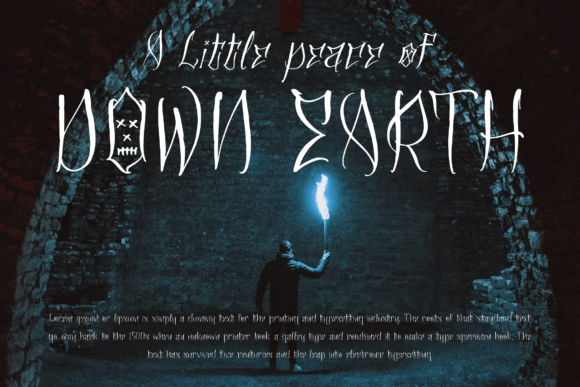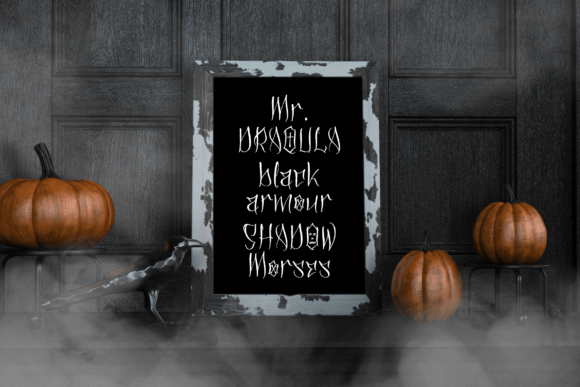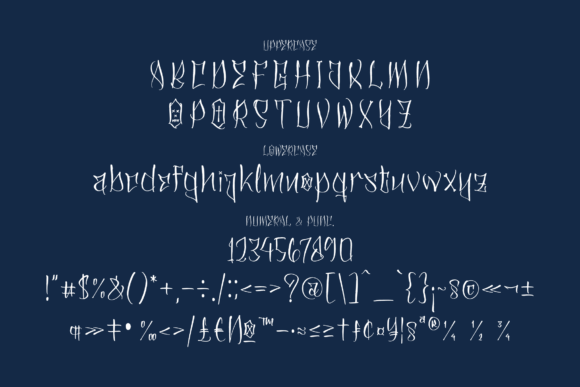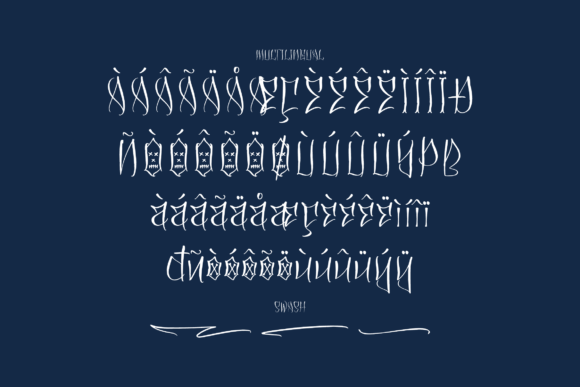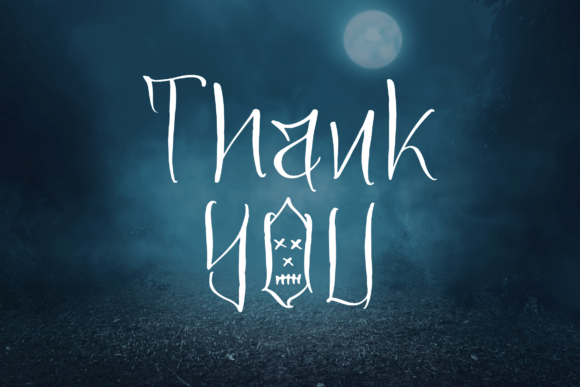
About Draqula Armour Font
Draqula Armour – Horror handwritten font, suitable for any projects such as logos, branding projects, homeware designs, product packaging, mugs, quotes, posters, shopping bags, t-shirts, book covers, name cards, invitation cards, greeting cards, labels, photography, watermark, special events, and all your other lovely projects that need a creepy script taste.